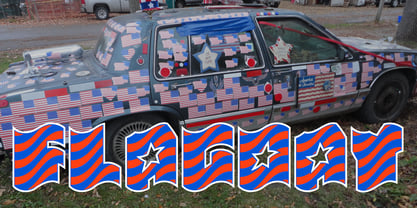
FlagDay Font
FlagDay Font is perfect for patriotic branding projects, government communications, military memorial designs, civic organization materials, national holiday promotions, and American heritage celebrations. This distinguished typeface excels in political campaign graphics, veterans' affairs documentation, historical exhibits, and any application where national pride and democratic values inspire meaningful visual communications.
What makes FlagDay Font so exciting is its powerful ability to evoke feelings of patriotism, unity, and American heritage through its dignified letterforms. The font features strong, confident strokes that reflect the enduring values of freedom and democracy, while maintaining the accessibility and readability that democratic communication requires. Its balanced design captures the spirit of American tradition while remaining contemporary and relevant.
FlagDay Font comes in a patriotic family including Light, Regular, Medium, Bold, and Heavy weights. Each style features complete uppercase and lowercase character sets, civic symbols, traditional numerals, and ceremonial punctuation marks. The font family also includes stars and stripes alternates, commemorative ligatures, and decorative elements that allow designers to create truly meaningful patriotic compositions.
The font's patriotic character makes it particularly effective for government institutions, veterans' organizations, civic groups, and educational institutions teaching American history. Its excellent readability ensures that FlagDay Font communicates clearly across all applications while maintaining its distinctive national character. The font's ability to inspire civic pride and democratic engagement makes it invaluable for any project seeking to strengthen community bonds and celebrate the enduring principles of American democracy.